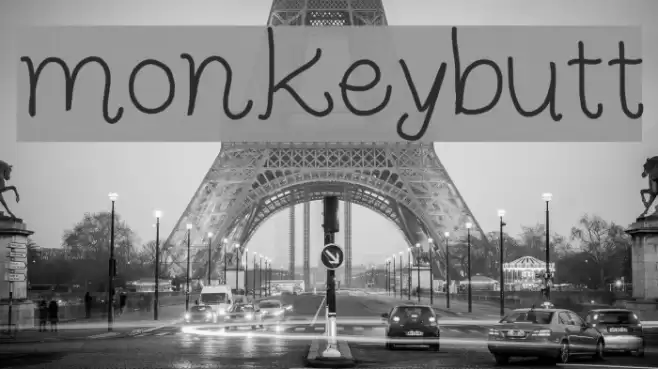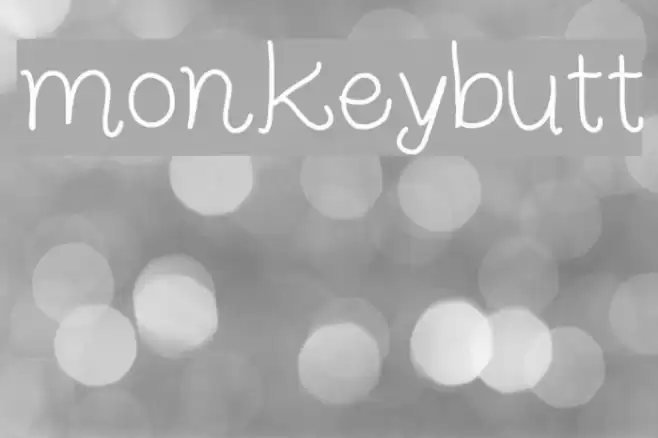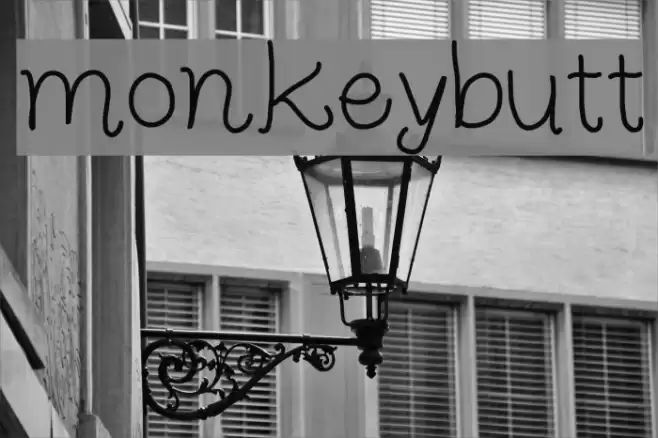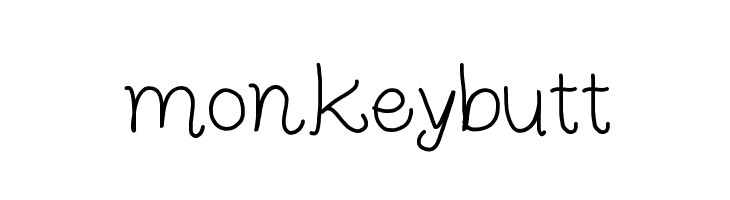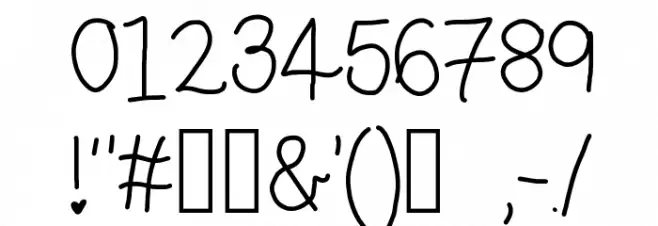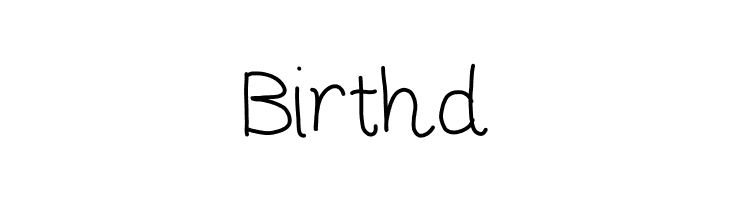
monkeybutt Font
monkeybutt Description
This font features a playful and casual handwritten style, characterized by its loose and informal letterforms. The strokes are consistent in thickness, giving it a uniform appearance while maintaining a sense of whimsy. The uppercase letters are slightly taller than the lowercase, with rounded edges and a slight tilt, adding to its approachable and friendly vibe. The numerals and special characters follow the same playful design, making it versatile for various uses. The overall look is reminiscent of a child's handwriting, making it perfect for projects that require a touch of fun and creativity.
A playful, handwritten font with a casual and whimsical style from Handwritten fonts.
- Proposed Projects: Ideal for children's books, greeting cards, playful branding, and informal invitations.
- Overall Style: Casual, Playful
- Use Case: Headlines, Informal text, Creative projects